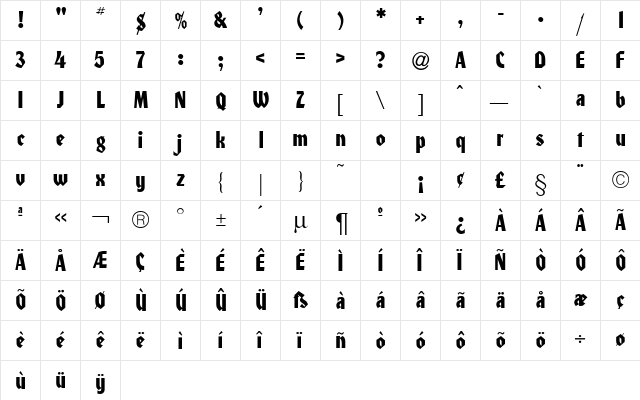
HeilonDB Normal
Design Context for HeilonDB Typeface
HeilonDB is a composed and adaptable typeface that performs quietly and consistently across a wide range of design contexts.